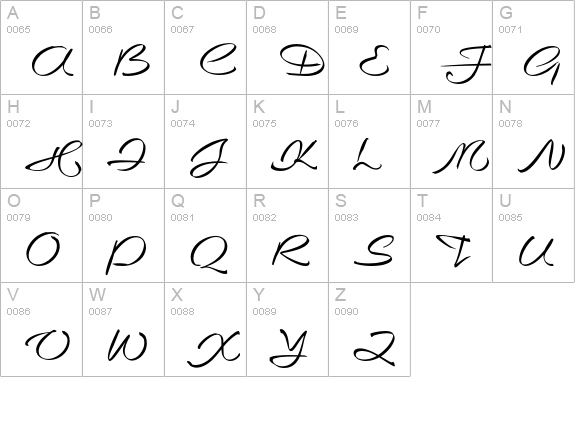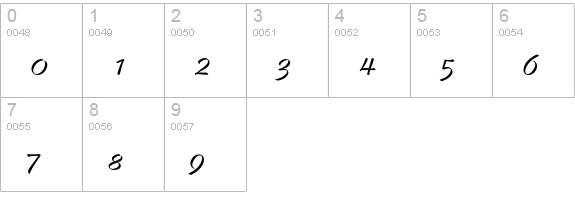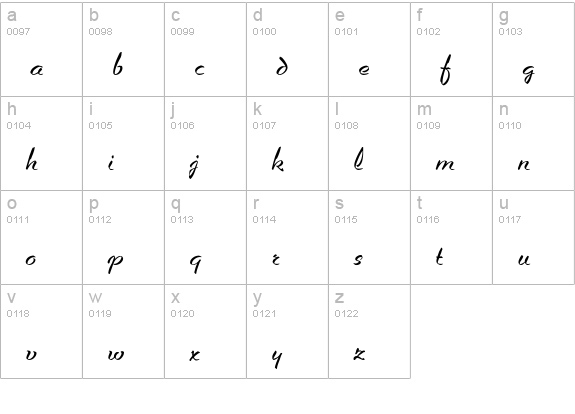
Caprice Font Details
Caprice font is a beautiful and elegant typeface that exudes sophistication and charm. With its unique curves and stylish flourishes, Caprice is the perfect choice for projects that require a touch of luxury and class. This versatile font can be used for a wide range of design applications, from branding and advertising to invitations and signage. What sets Caprice font apart is not only its stunning design but also the fact that it is completely free to download. Yes, you read that right - Caprice font is available for free at FontsMarket.com, making it accessible to designers and creatives of all levels. Whether you're working on a personal project or a professional assignment, Caprice font is sure to elevate your design and bring a sense of sophistication to your work. Don't miss out on the opportunity to add this exquisite font to your collection. Download Caprice font today and let your creativity shine!